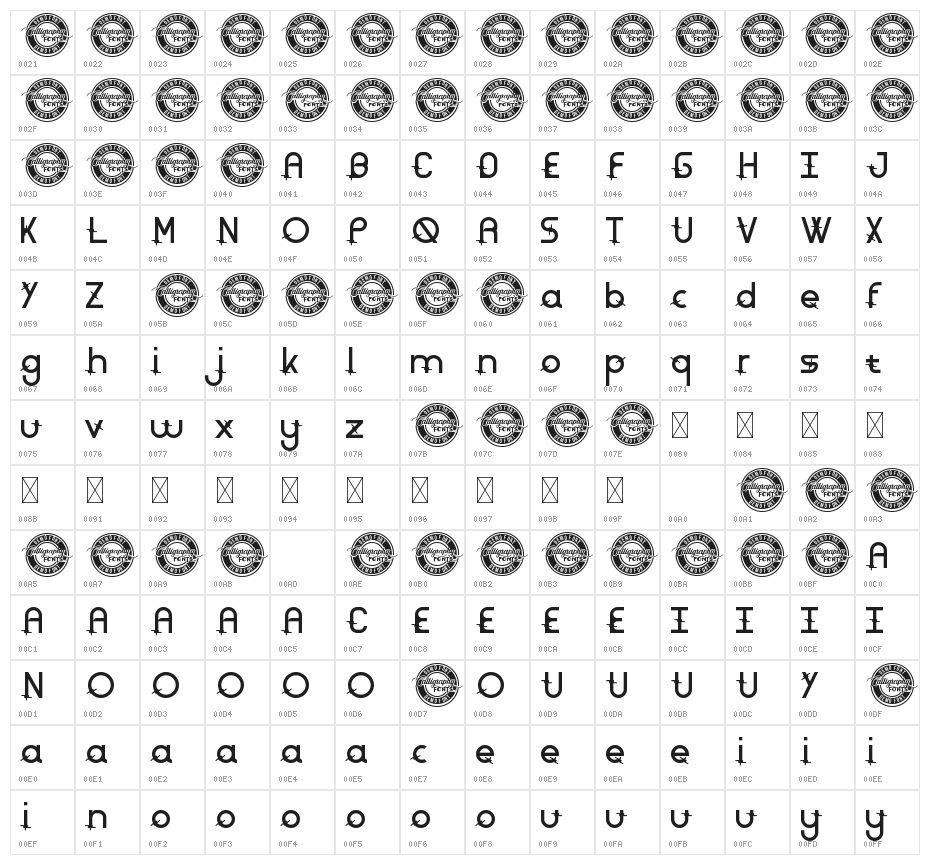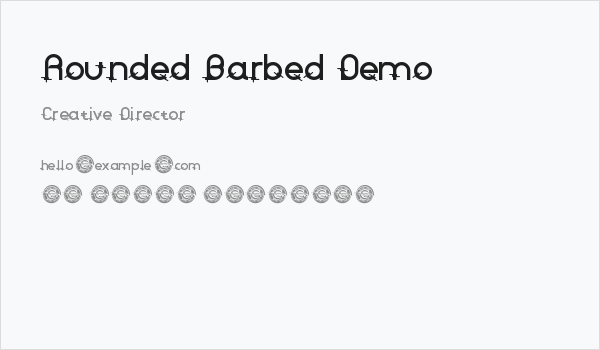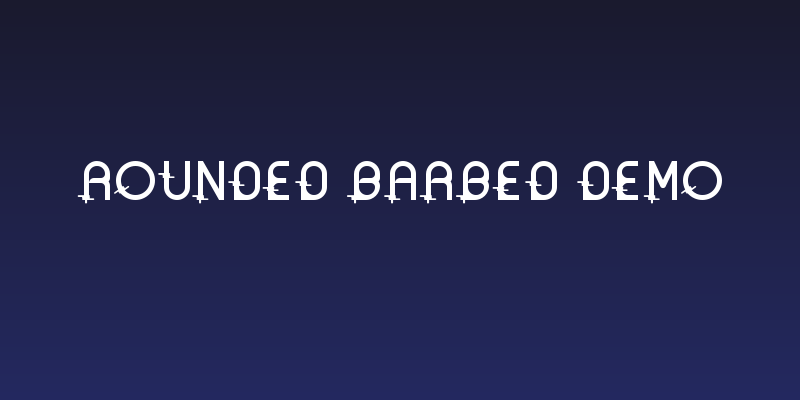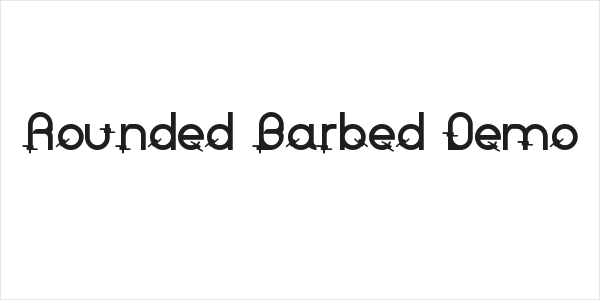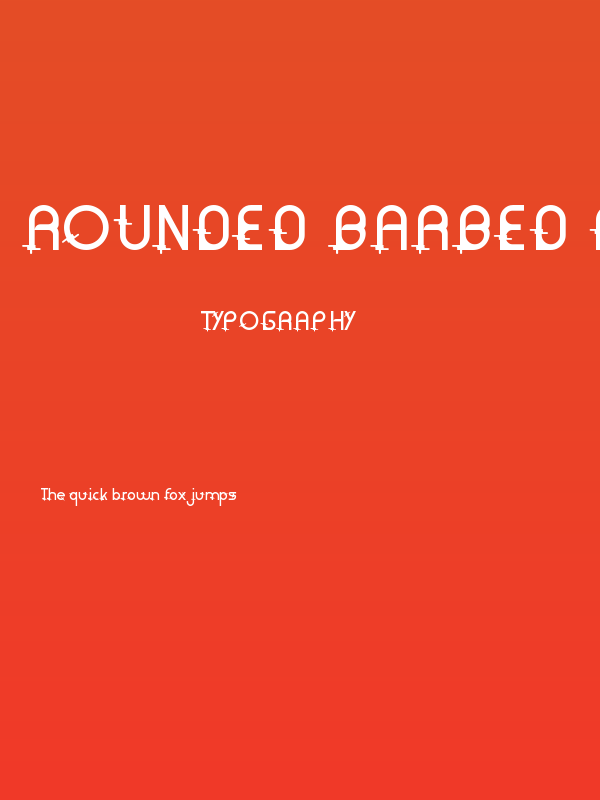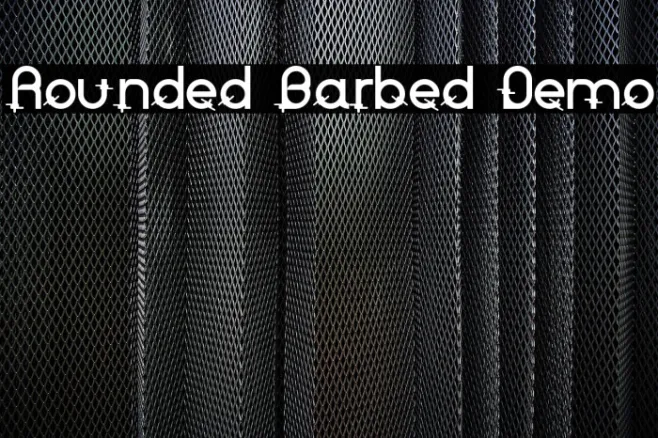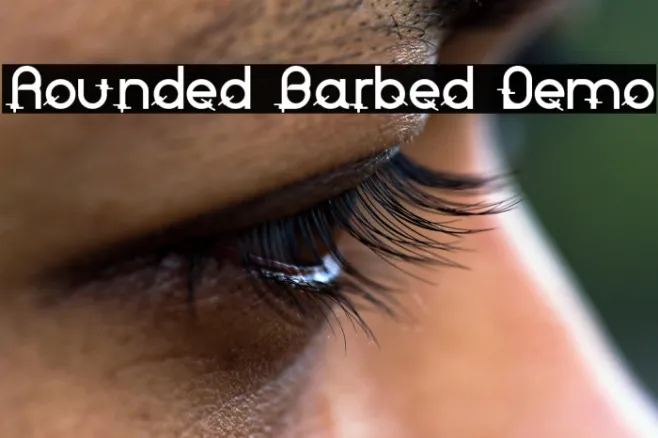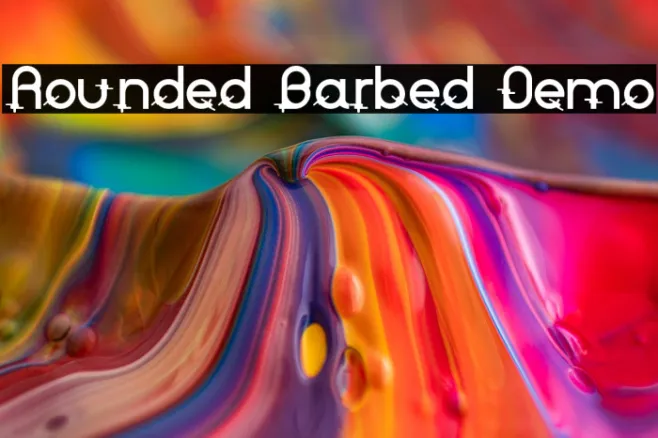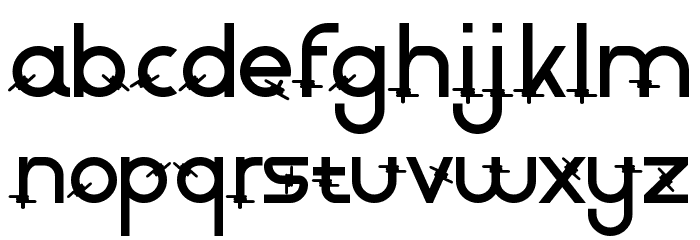
Rounded Barbed Demo Font
Rounded Barbed Demo Description
This font features a unique blend of geometric shapes and barbed elements, creating a striking visual impact. The uppercase and lowercase letters are characterized by rounded forms intersected by sharp, barbed lines, giving it a modern and edgy appearance. The numerals and special characters follow the same design principle, ensuring consistency throughout. The overall style is bold and decorative, making it suitable for projects that require a strong visual statement. The font's distinctiveness lies in its ability to combine softness with an industrial edge, making it versatile for various creative applications.
| Proposed Projects | Ideal for branding, posters, album covers, and any design requiring a bold, modern aesthetic. |